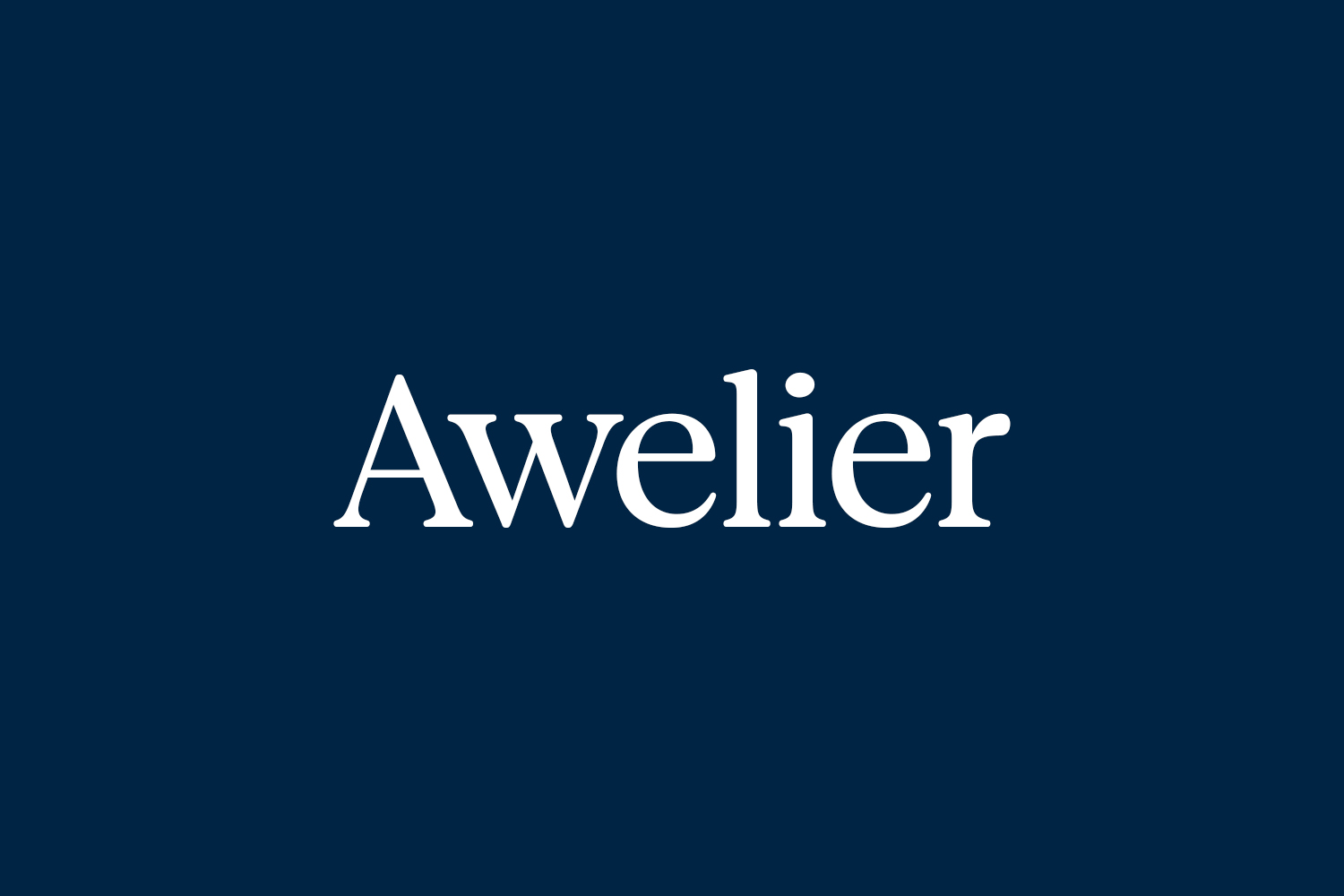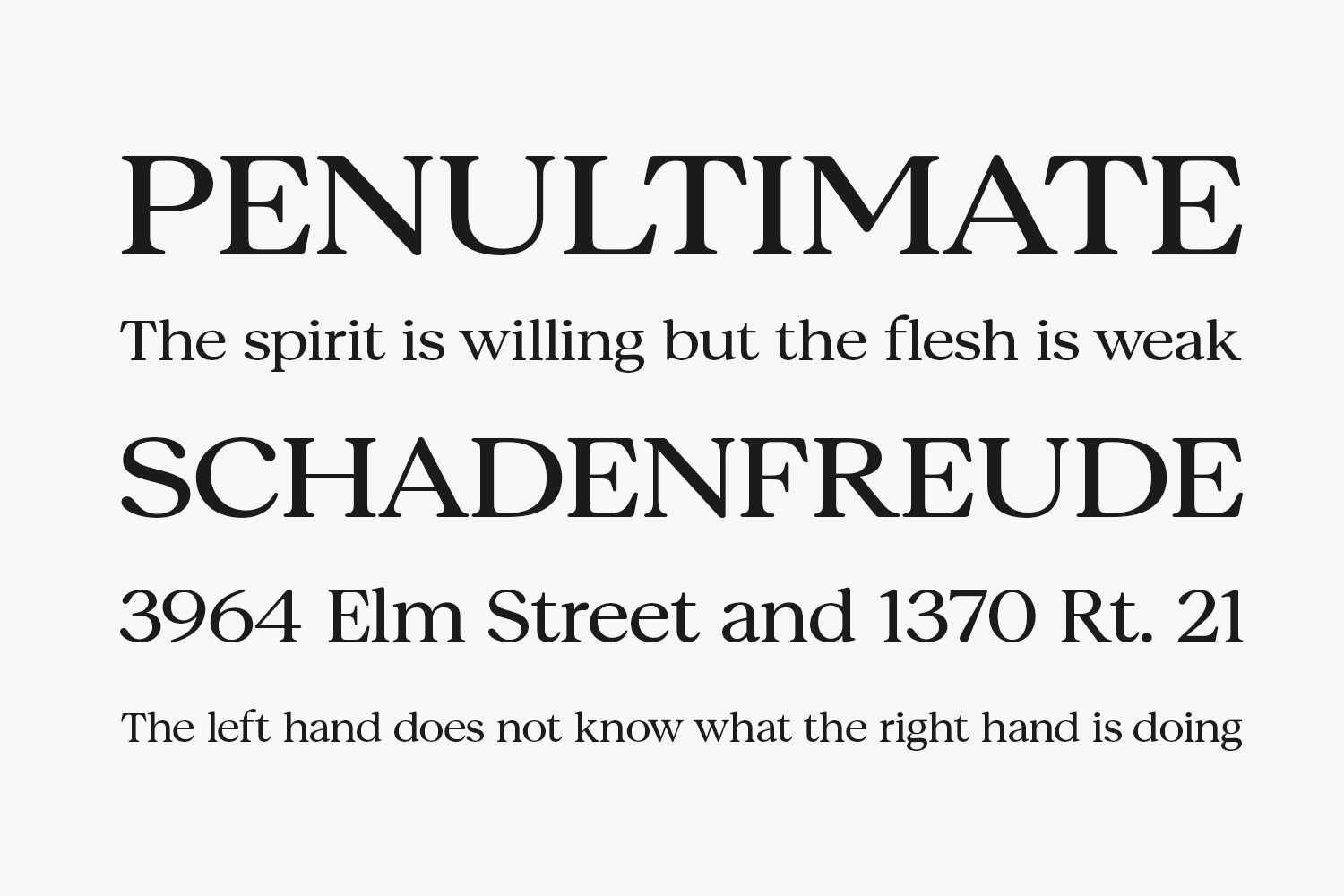
Awelier – Free Soft Serif Font Family with Six Elegant Weights
Awelier is a refined soft-serif typeface developed by MadeType featuring six styles—Light, Regular, Medium, Bold, ExtraBold, and Black—in OTF format. It blends gentle curves with balanced geometry to deliver a warm, approachable aesthetic ideal for branding, logos, editorial layouts, packaging, and any design that seeks a touch of sophistication. The demo version is free for personal use, while a commercial license can be obtained through platforms like TheHungryJPEG or Pixel Surplus.
Why Choose Awelier?
- Six Harmonious Weights: From subtle Light to commanding Black, ideal for typographic hierarchy and flexibility.
- Soft & Elegant: Delicate serifs and rounded terminals blend crispness with elegance, perfect for high-end visual identity.
- Multilingual Ready: Includes extended Latin glyph set (≈369 glyphs), covering 61+ languages.
- Refined Yet Readable: Supports editorial bodies and headlines with impressive clarity and warmth.
Where to Use Awelier?
- Branding & Logos: Elegant yet grounded—ideal for boutique, beauty, or editorial identities.
- Editorial Design: Works beautifully in magazine titles, article intros, and captions.
- Packaging & Labels: Conveys trust and sophistication on boutique product packaging.
- Web & UI: Smooth rendering across digital interfaces and promotional sites.
- Print Collateral: Refined choices for business cards, stationery, and high-end brochures.
Design Tips with Awelier
Use the Light and Regular weights for elegant body text, reserving Bold to Black for titles and emphasis. Pair with clean sans-serifs like Neusharp or Open Sans to balance the warmth. The subtle serif details shine on off-white or textured backgrounds—just ensure sufficient spacing for legibility.
- Glyphs: Uppercase, lowercase, numerals, punctuation, extended Latin (~369 glyphs).
- Language Support: English, Western & Central European languages, Cebuano, Swahili, and more.